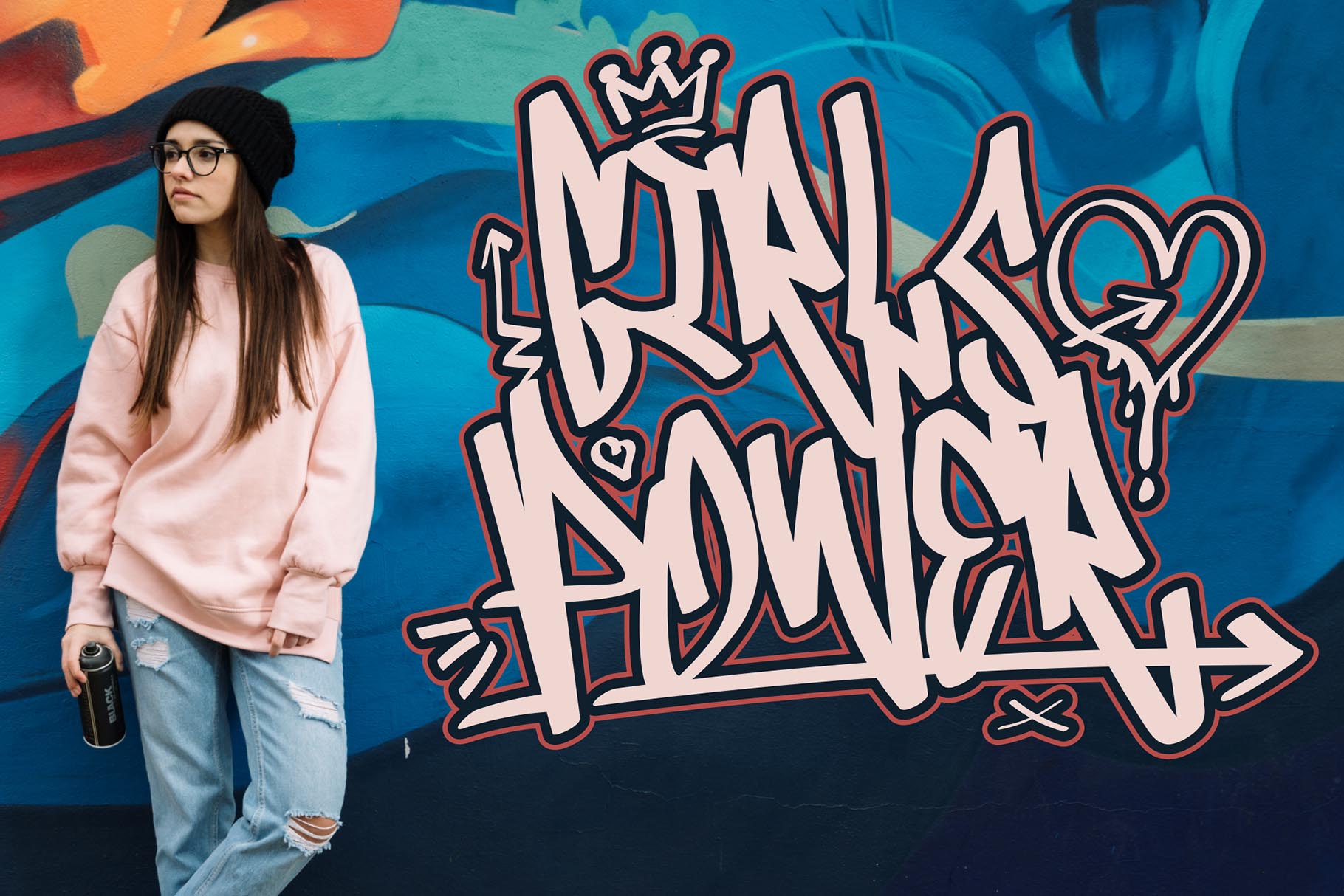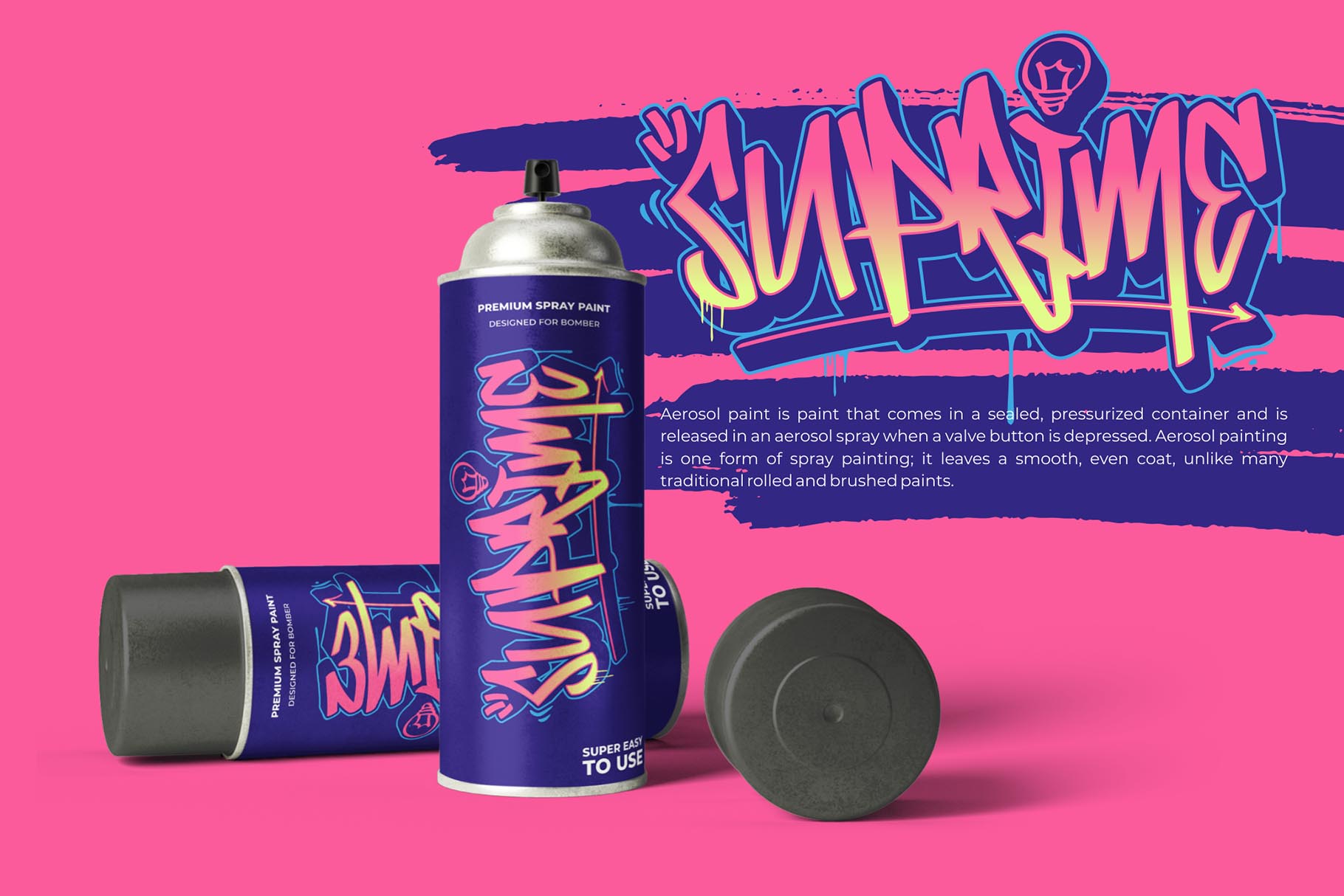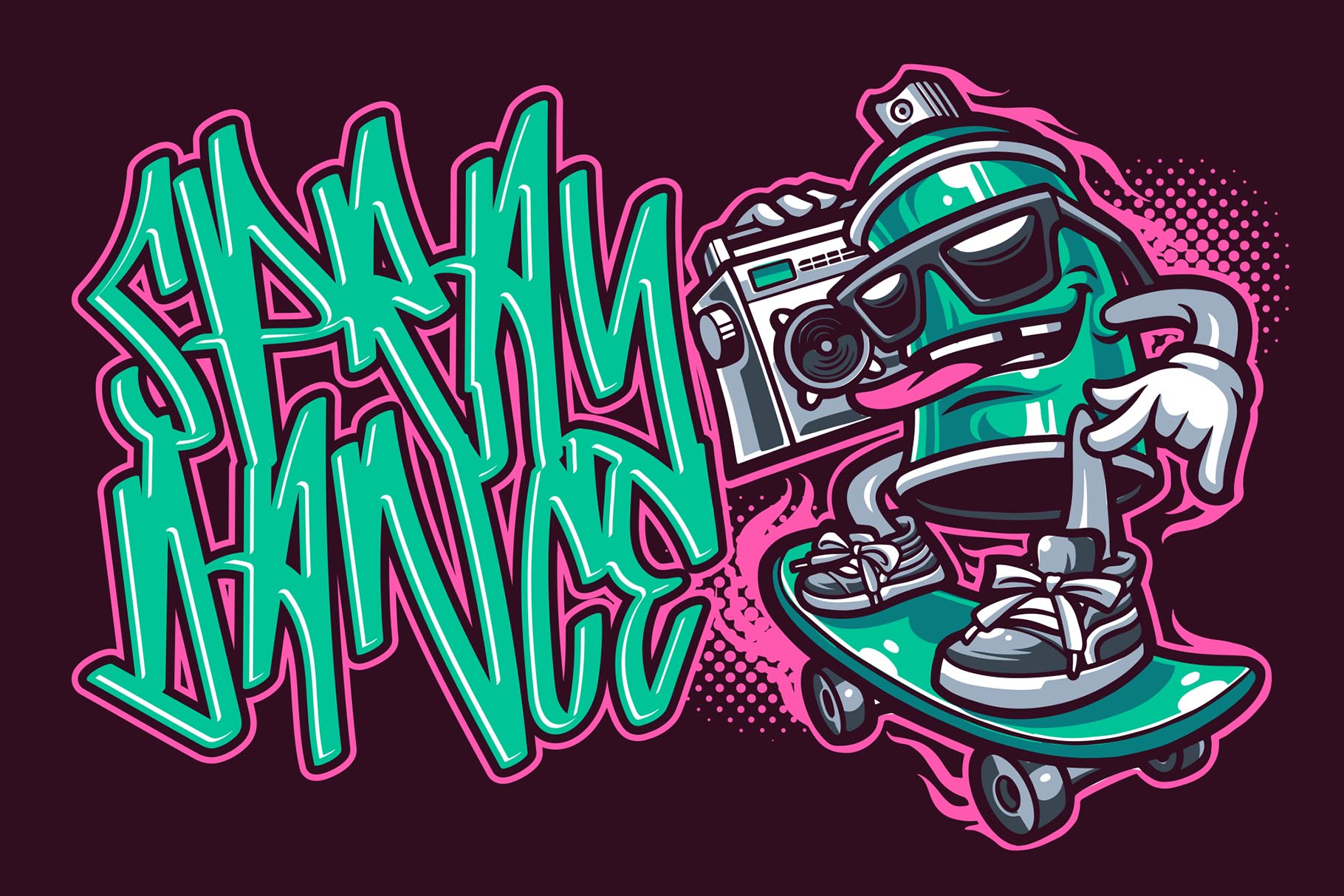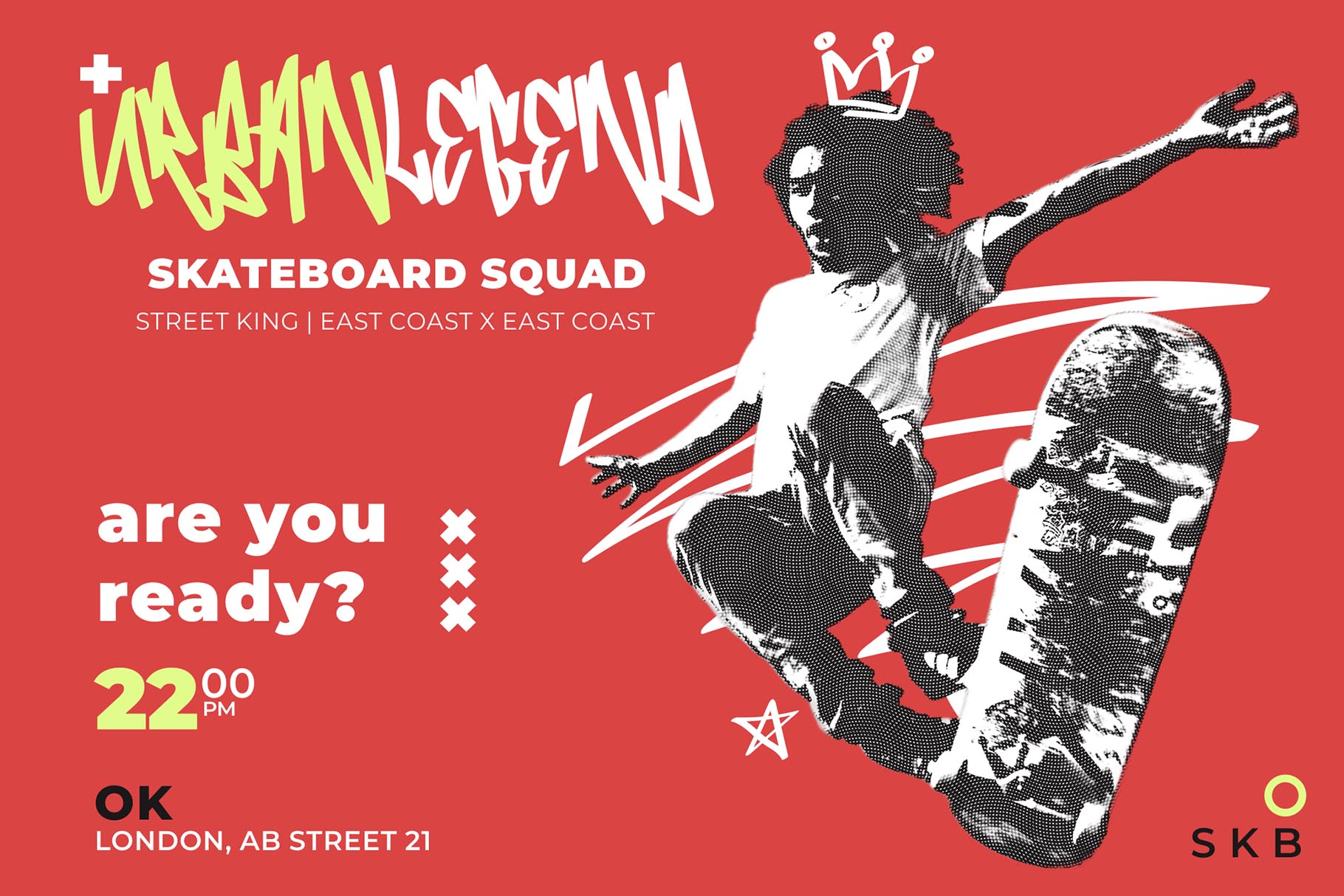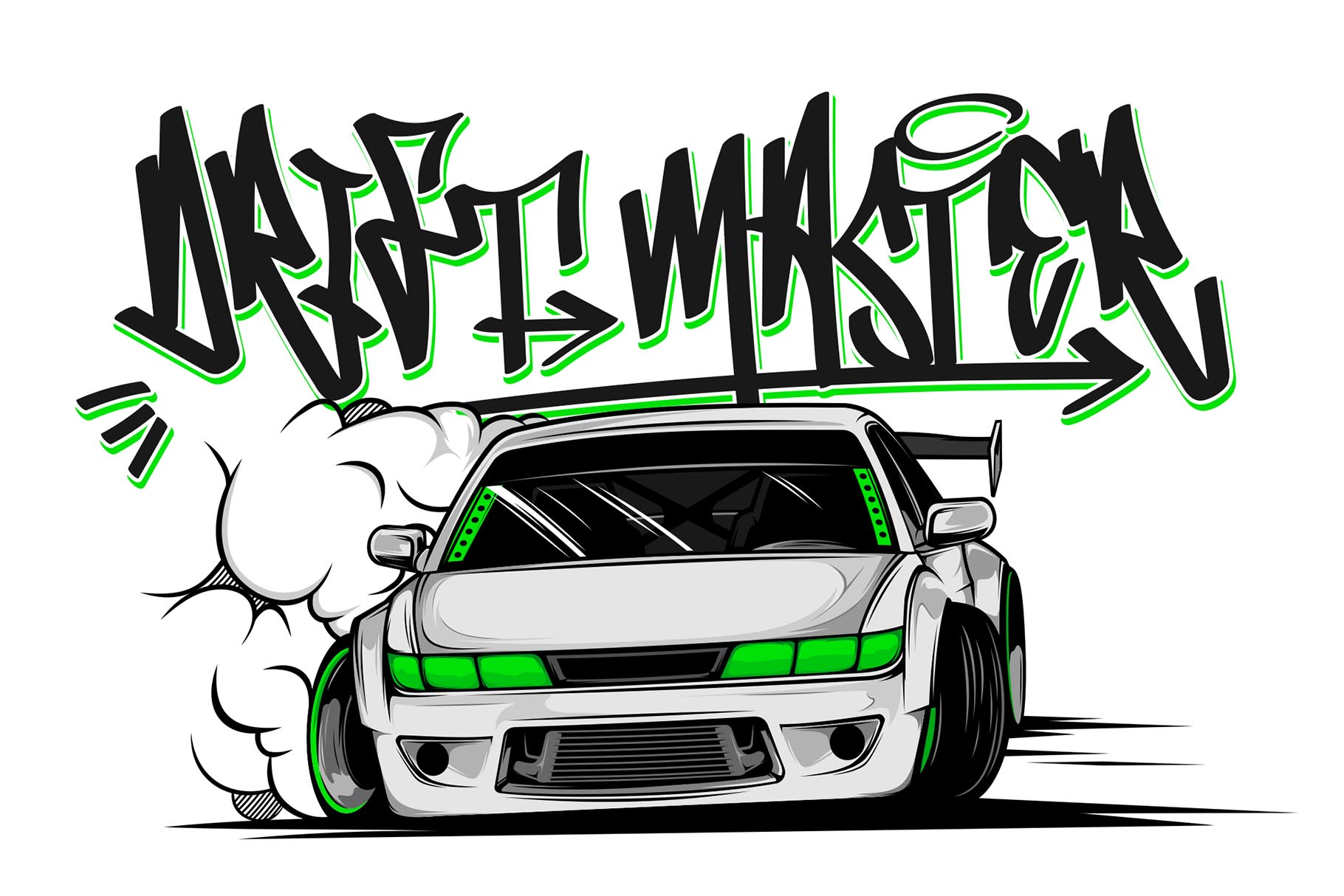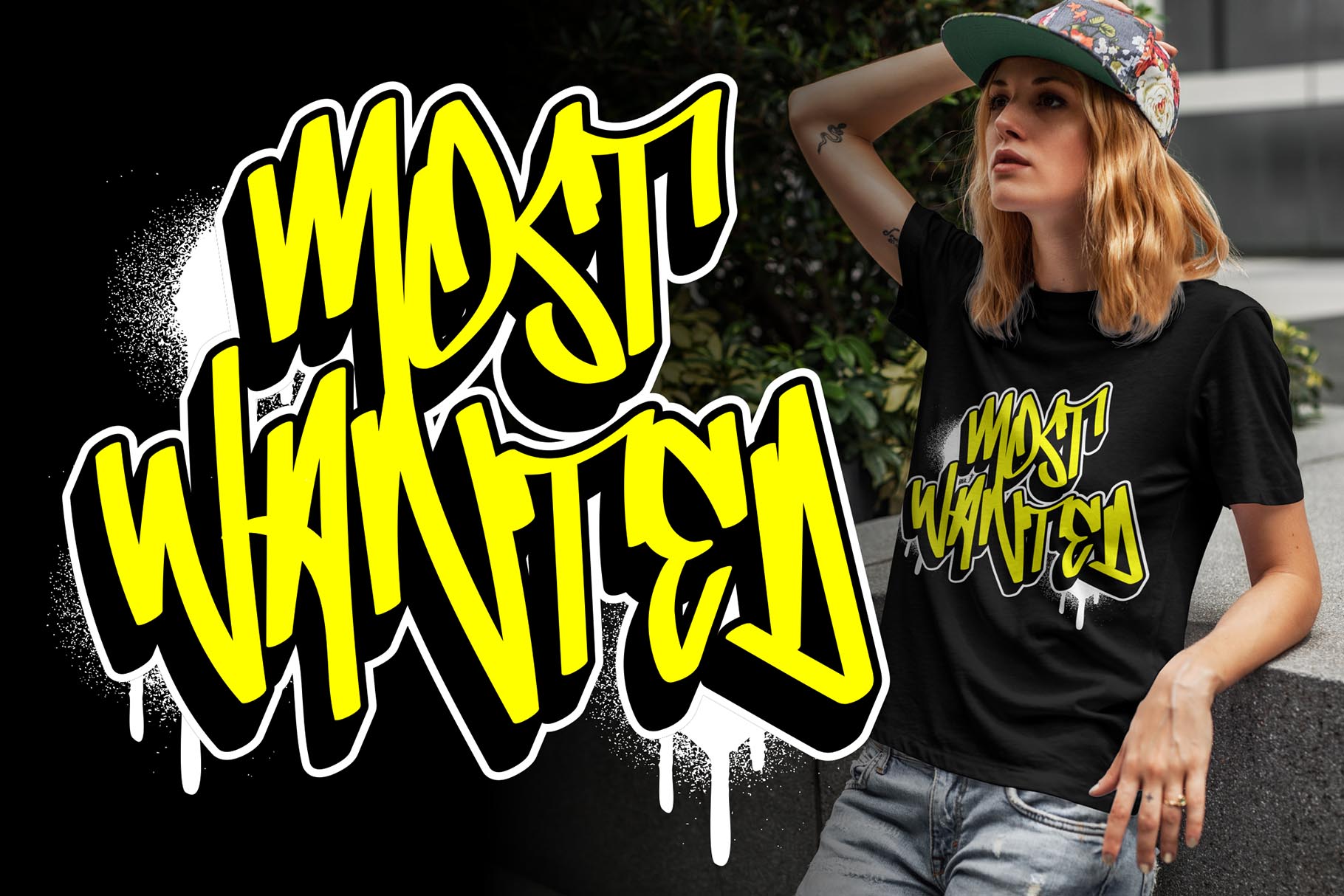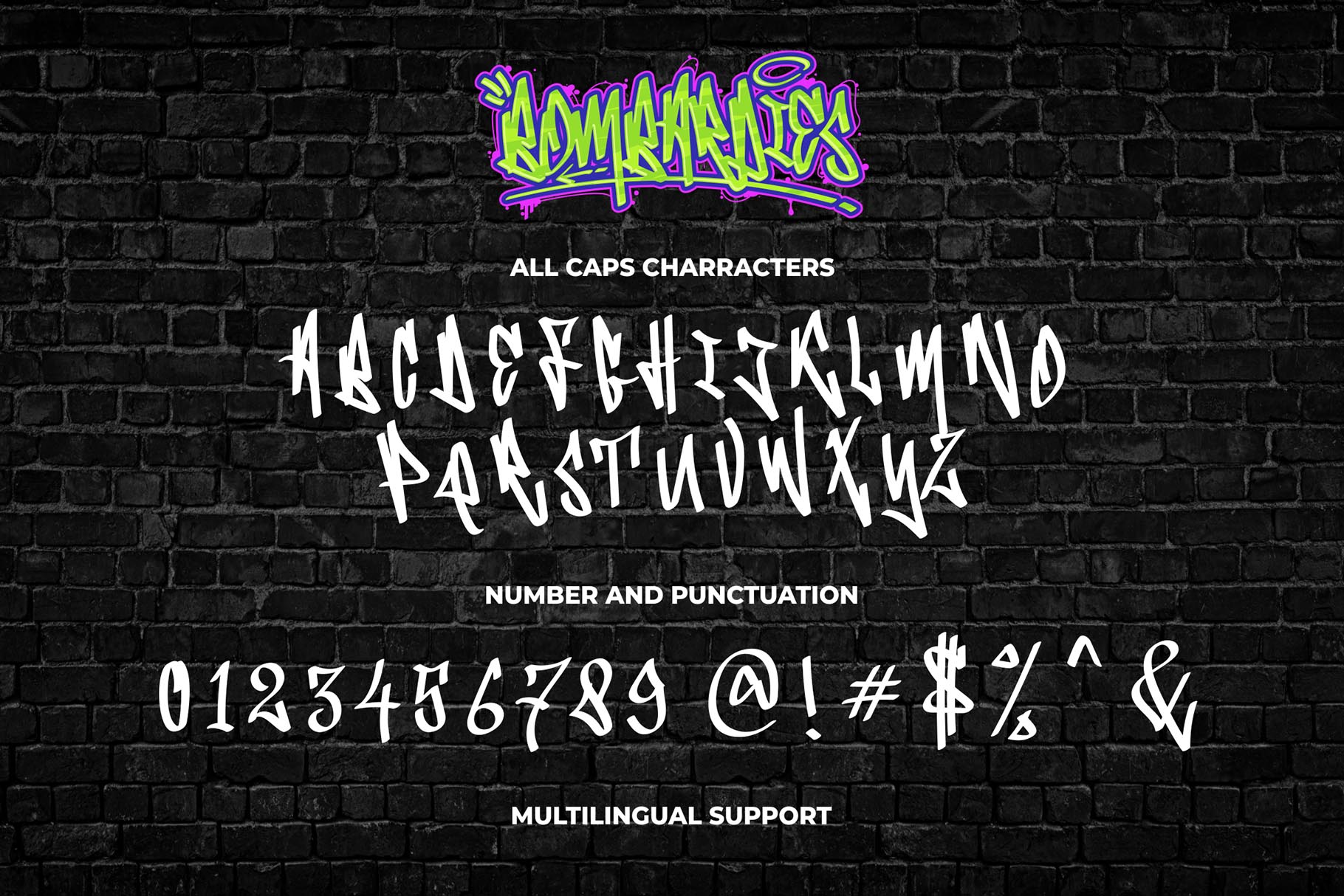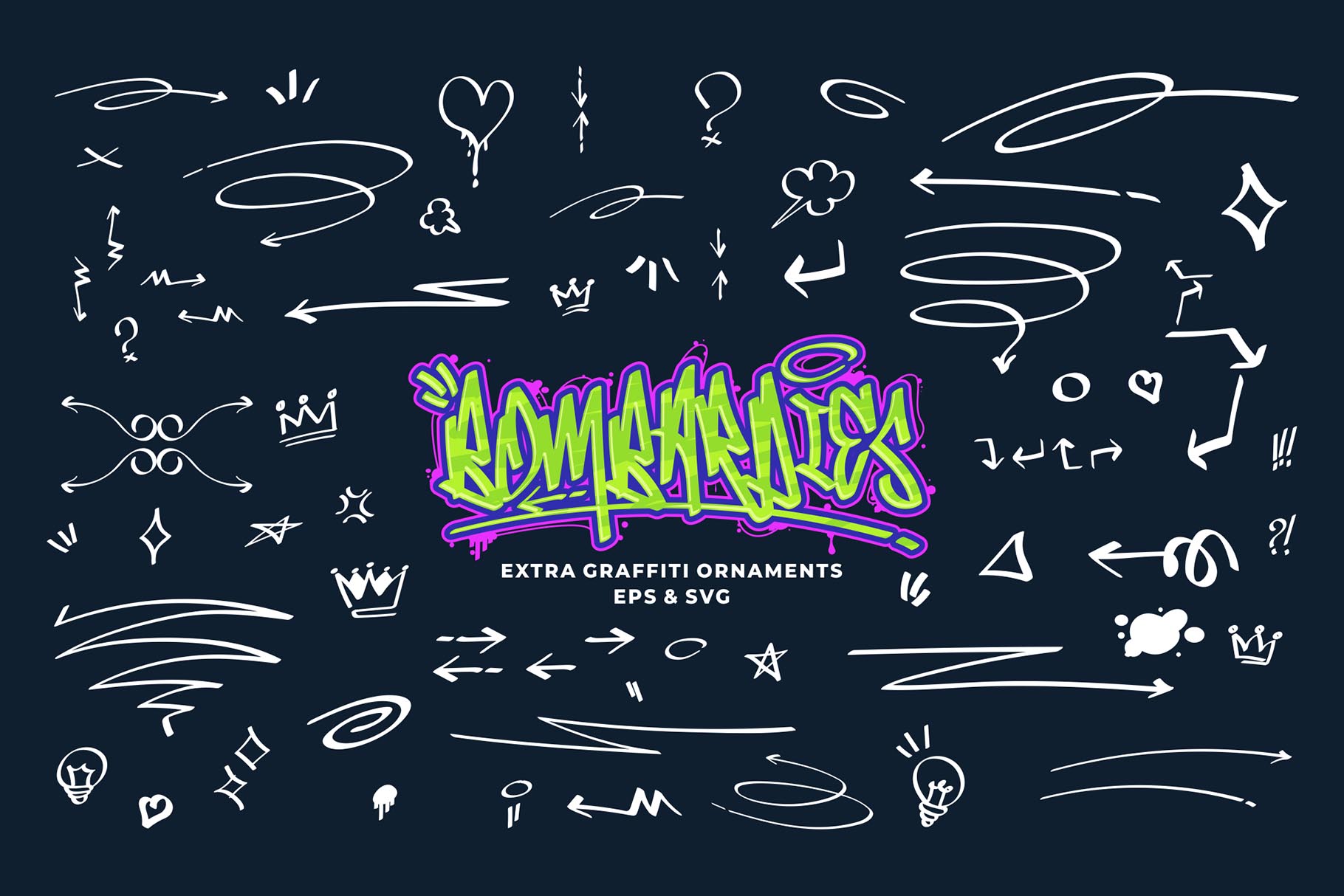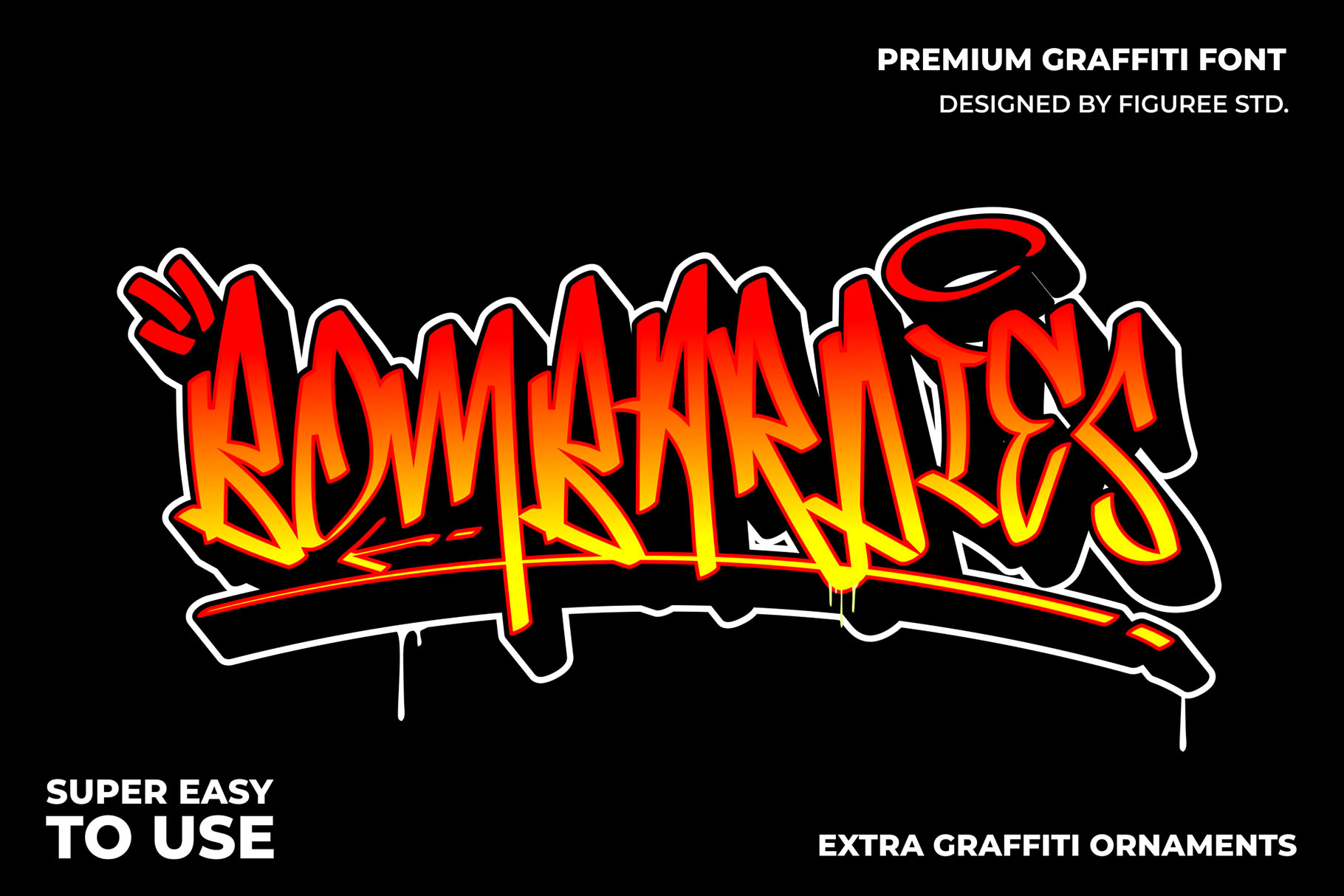
Bombardies - Modern Graffiti Font
Bombardies
Modern Graffiti Font
About the Font
Bombardies
Bombardies – Modern Graffiti Font Bombardies is a bold modern graffiti font created for designers who want typography with a strong urban presence, expressive street-inspired character, and confident…
About Bombardies
Bombardies – Modern Graffiti Font
Bombardies is a bold modern graffiti font created for designers who want typography with a strong urban presence, expressive street-inspired character, and confident visual impact. Built around powerful all-caps letterforms, Bombardies turns words into graphic statements that can immediately become the focal point of a composition.
This graffiti font is designed for projects where typography needs to communicate attitude rather than simply deliver information. From streetwear graphics and logos to posters, music artwork, merchandise, stickers, packaging, social media graphics, and promotional campaigns, Bombardies gives designers a distinctive visual language inspired by contemporary graffiti culture.
The personality of Bombardies graffiti font combines expressive urban lettering with a modern display approach. Its strong uppercase structure makes short words, brand names, slogans, titles, and campaign messages feel direct and visually dominant.
Alongside the main font, Bombardies also includes Bombardies Ornament, providing an additional street-inspired graphic element that can be used to strengthen layouts, create decorative compositions, or add more personality around the typography.
A Modern Graffiti Font with Urban Character
Bombardies Modern Graffiti Font takes inspiration from contemporary graffiti lettering, street graphics, independent creative culture, and expressive urban typography. Rather than feeling clean or corporate, the letterforms are designed to bring energy and personality into every composition.
This makes Bombardies especially useful when typography is expected to become part of the visual identity itself. Large headlines can work as graphic elements, brand names can become stronger focal points, and short statements can carry the composition without requiring excessive decoration.
The direct visual character of this urban graffiti font makes it suitable for designers building energetic layouts with photography, illustration, textures, bold colors, stickers, spray-inspired elements, or other street-influenced graphics.
Bombardies can also move beyond conventional graffiti applications. Its strong display construction allows it to work across branding, music graphics, apparel artwork, merchandise, editorial titles, entertainment projects, digital campaigns, and creative promotional material.
All-Caps Graffiti Typography
Bombardies graffiti font uses an all-caps character system designed for strong display typography. Uppercase lettering naturally creates a more direct visual rhythm, making Bombardies particularly effective for short messages that need to remain recognizable while still carrying a distinctive personality.